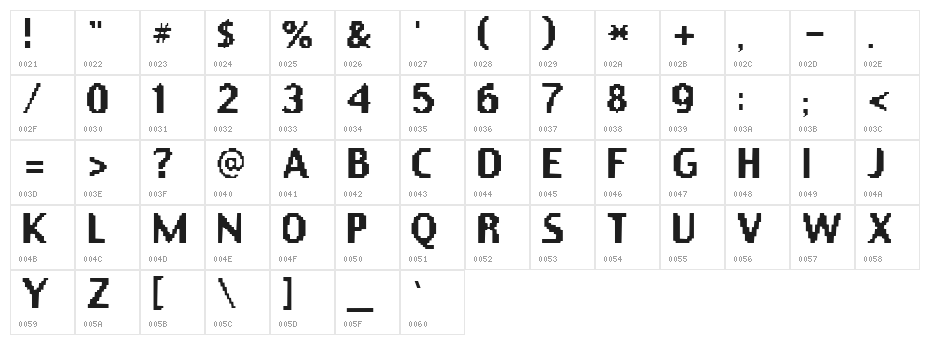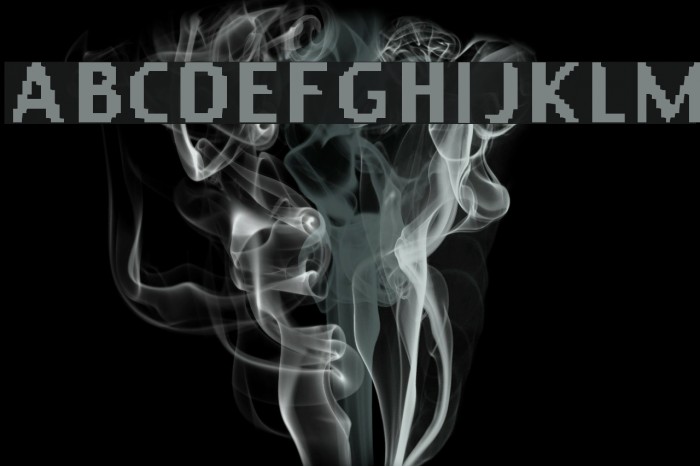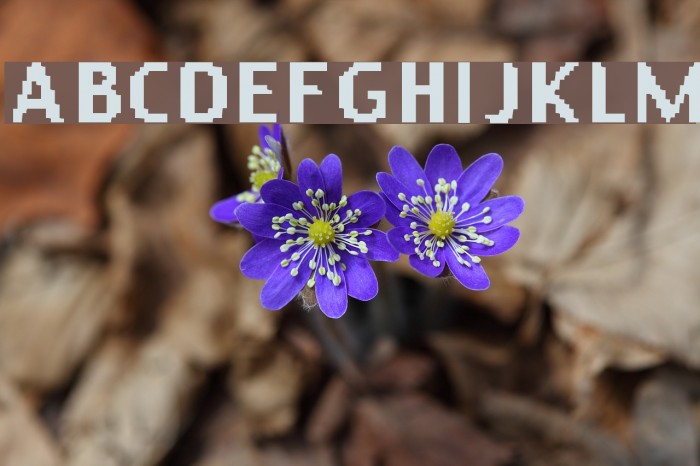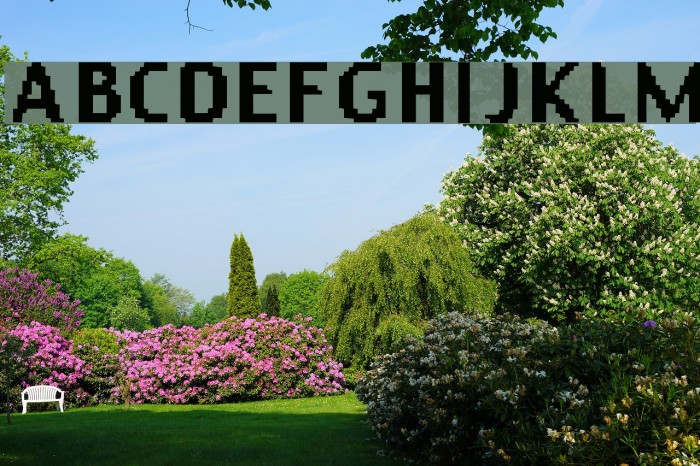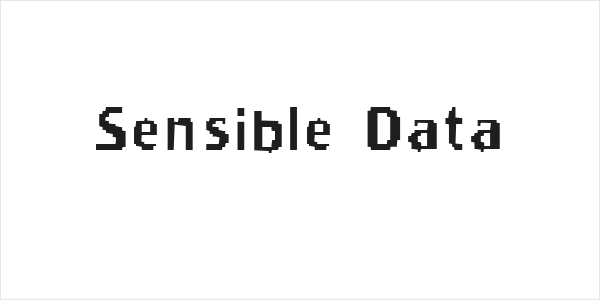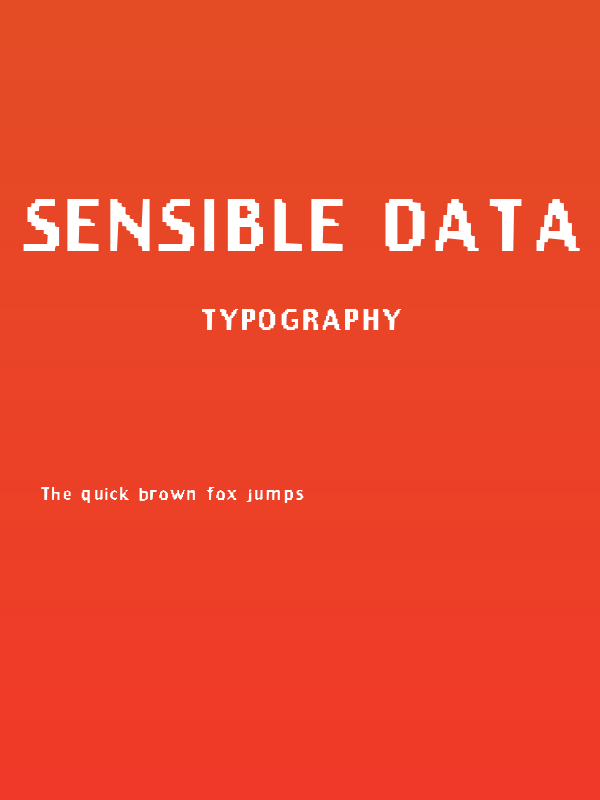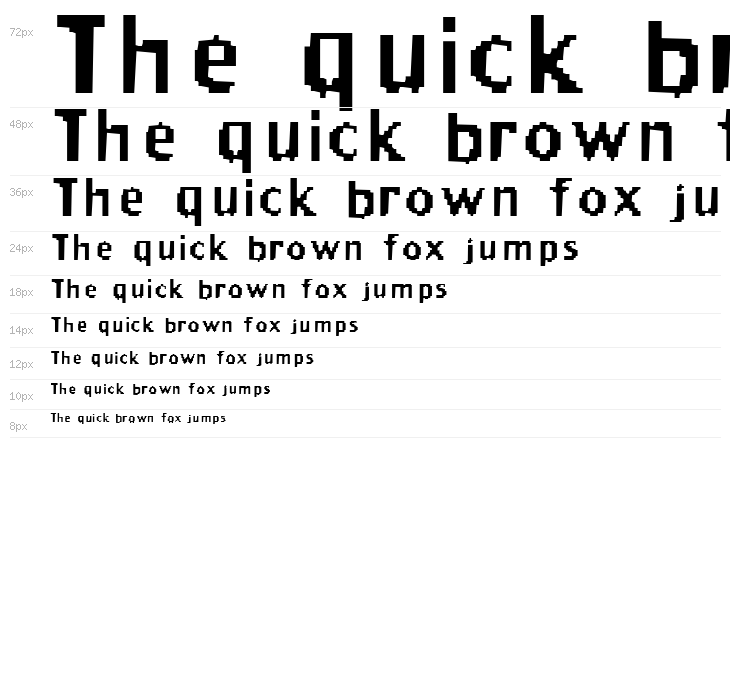
Sensible Data Font
Sensible Data Description
This font features a bold, pixelated style reminiscent of early digital or video game typography. The characters are blocky with a uniform thickness, giving it a distinctly retro and digital appearance. The uppercase and lowercase letters maintain a consistent height, while the numbers and special characters are designed to match the overall aesthetic. The font's geometric and modular design makes it ideal for projects that require a vintage or tech-inspired look.
| Overall Style | Retro, Digital |
| Use Case | Headlines, Logos, Digital Art |
| Proposed Projects | Ideal for video game design, retro-themed posters, digital art, and tech-inspired branding. |